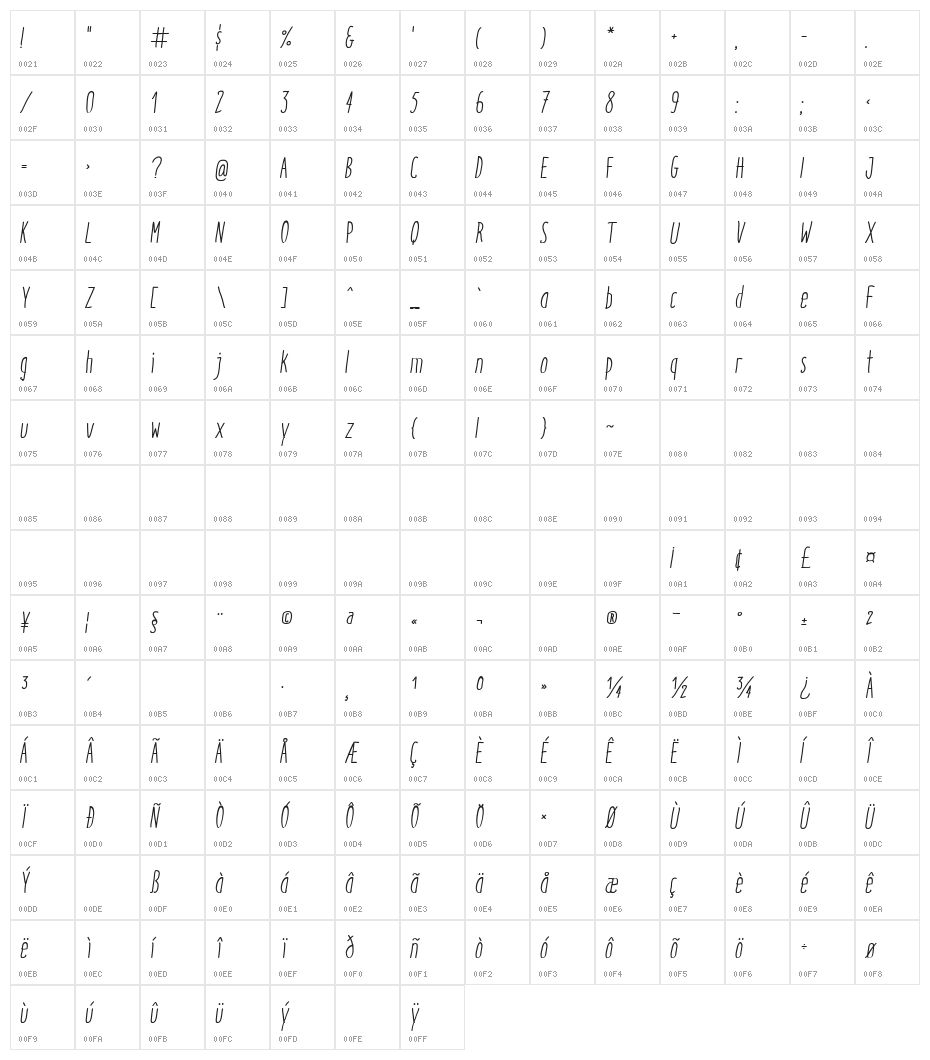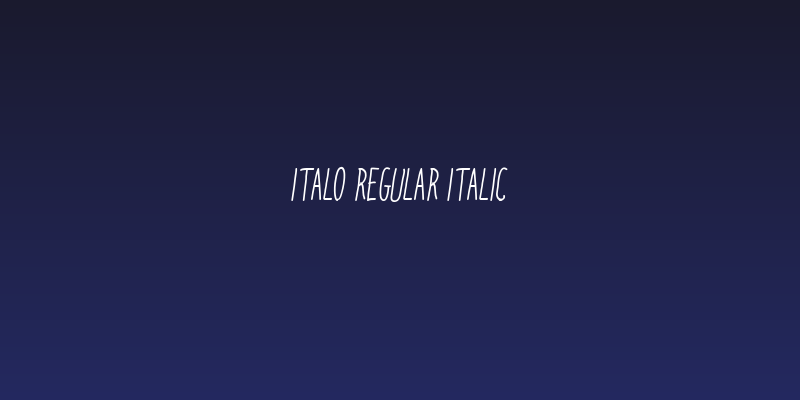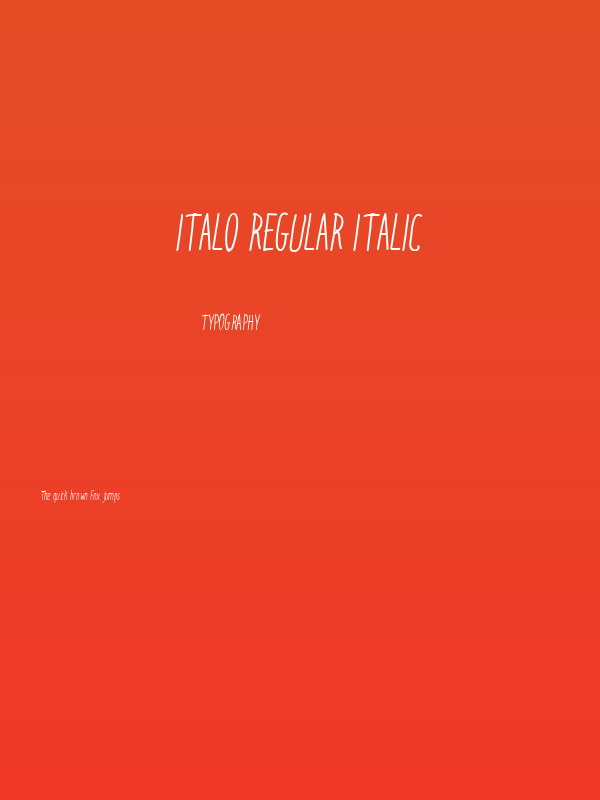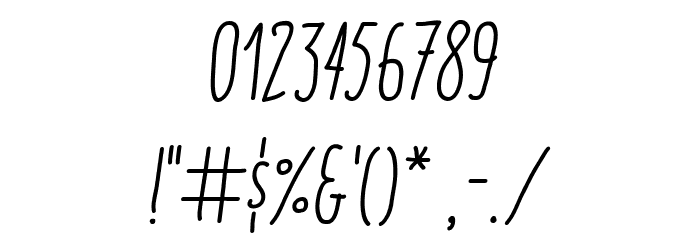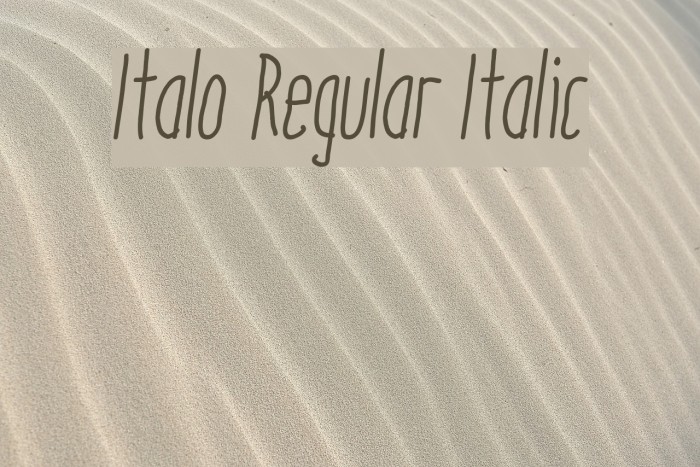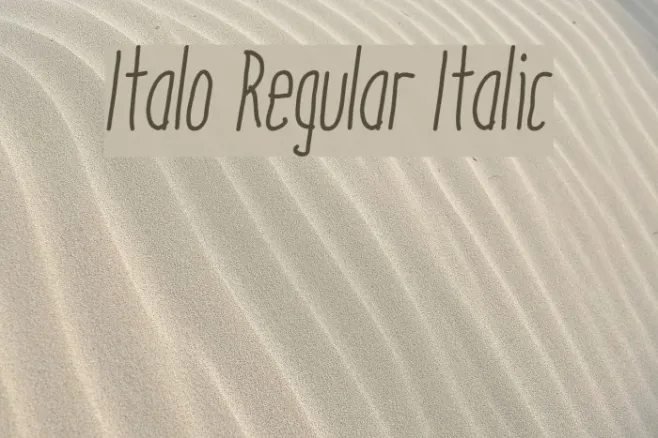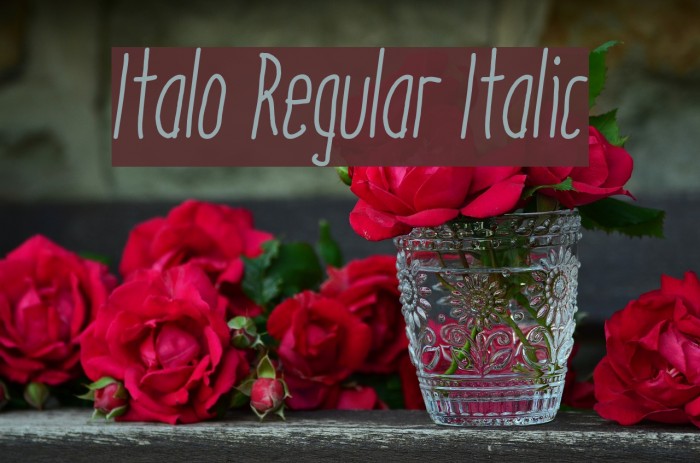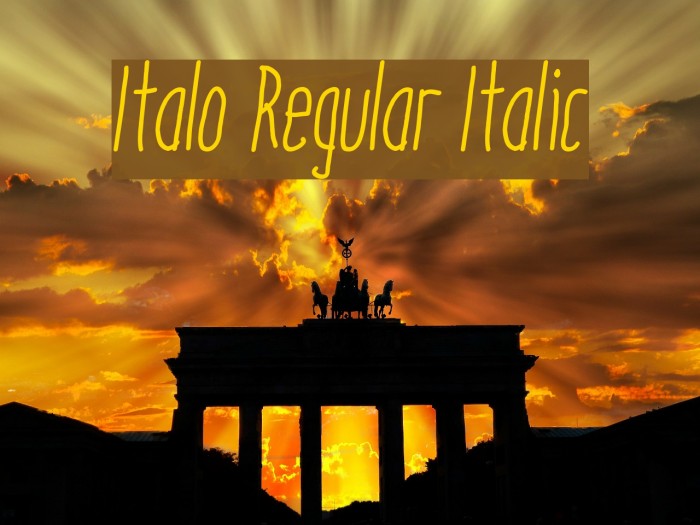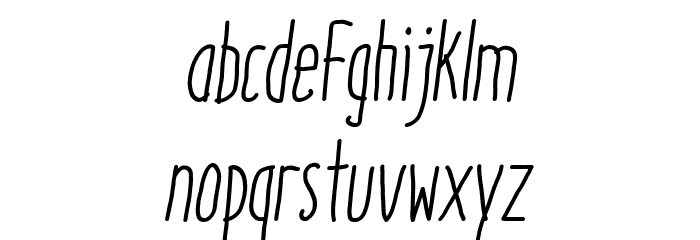
Italo Regular Italic Font
Italo Regular Italic Description
This font features a playful and casual handwritten style with a slight slant, giving it an italicized appearance. The characters are elongated and have a consistent stroke width, contributing to a clean and modern look. The uppercase and lowercase letters maintain a cohesive design, with rounded edges and a friendly demeanor. Numbers and special characters are well-integrated, matching the overall aesthetic. The font's informal yet stylish nature makes it suitable for a variety of creative projects.
| Use Case | Logos, Headlines, Creative projects |
| Proposed Projects | Ideal for greeting cards, invitations, personal branding, and creative social media graphics. |